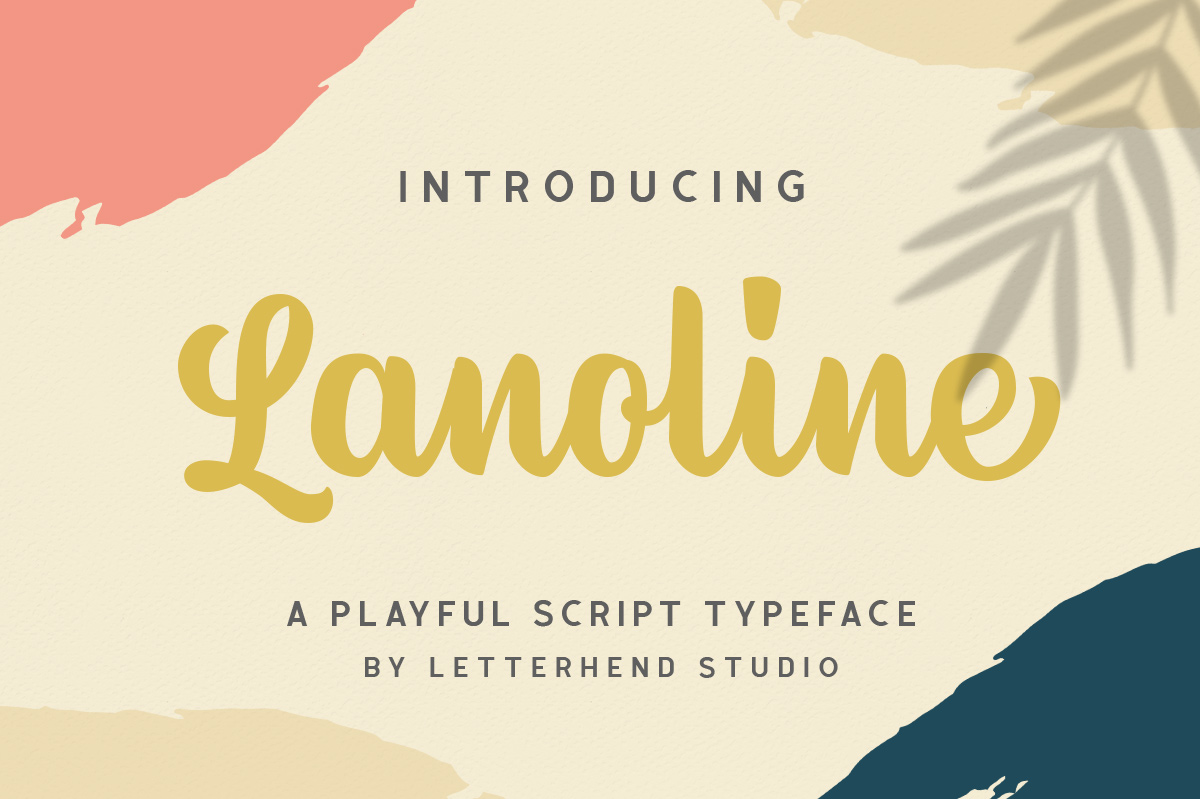
Lanoline Script Font
The Lanoline Script Font is a fantastic choice for a variety of design projects that require a touch of elegance and personality. Its delicate, flowing strokes and stylish letterforms make it perfect for branding, creating unique logos, and designing sophisticated wedding invitations. It's also an excellent option for social media graphics, product packaging, and greeting cards where you want to add a handwritten, personal feel. This font has a timeless, romantic quality that can instantly elevate any project, giving it a high-end, bespoke look that is both approachable and refined. Whether you're working on a personal blog or a major brand campaign, Lanoline Script Font can bring your vision to life with its graceful charm.
What makes the Lanoline Script Font so exciting is its exceptional versatility and fluid design. The font captures the essence of modern calligraphy, with a natural, handwritten feel that is both beautiful and easy to read. Its smooth curves and consistent flow create a sense of harmony and sophistication, making it stand out from more rigid script fonts. The balance between its elegant swashes and clean lines gives it a unique character that feels both contemporary and classic. This font communicates a sense of care and attention to detail, making it a powerful tool for projects that aim to connect with an audience on an emotional level.
The Lanoline Script Font family often includes a comprehensive set of characters, featuring a full range of uppercase and lowercase letters, numbers, and punctuation. For designers, its most exciting features are typically the stylistic alternates, ligatures, and swashes. These elements allow you to customize the look of your text, adding beautiful flourishes and seamless connections between letters. This provides incredible flexibility, enabling you to create a truly bespoke typographic design for every project. The font’s built-in versatility ensures that you can use it for everything from a simple signature logo to a complex text layout without losing its unique charm.